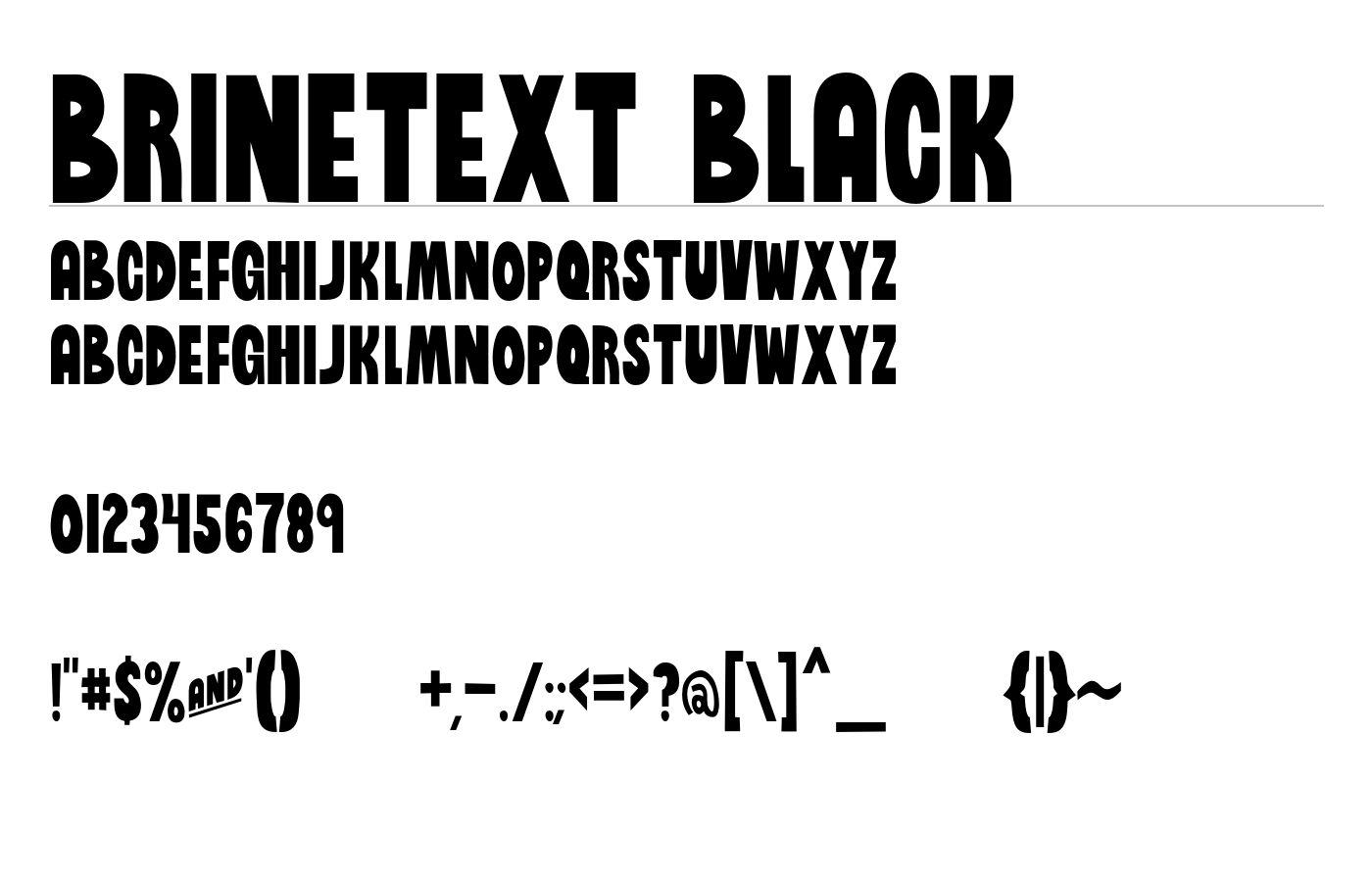
Brinetext Black is a bold, condensed sans serif font with a strong, playful character that makes a striking impact. Its tall, rounded letterforms with tight spacing and quirky details lend a retro-modern vibe, perfect for headlines, posters, and branding that demands attention. This font works well where a bold, confident statement is needed, combining fun energy with clear readability.
Brinetext Black Font
About Brinetext Black Font
| Font family | Brinetext Black Font |
| Designer | Alex Tomlinson |